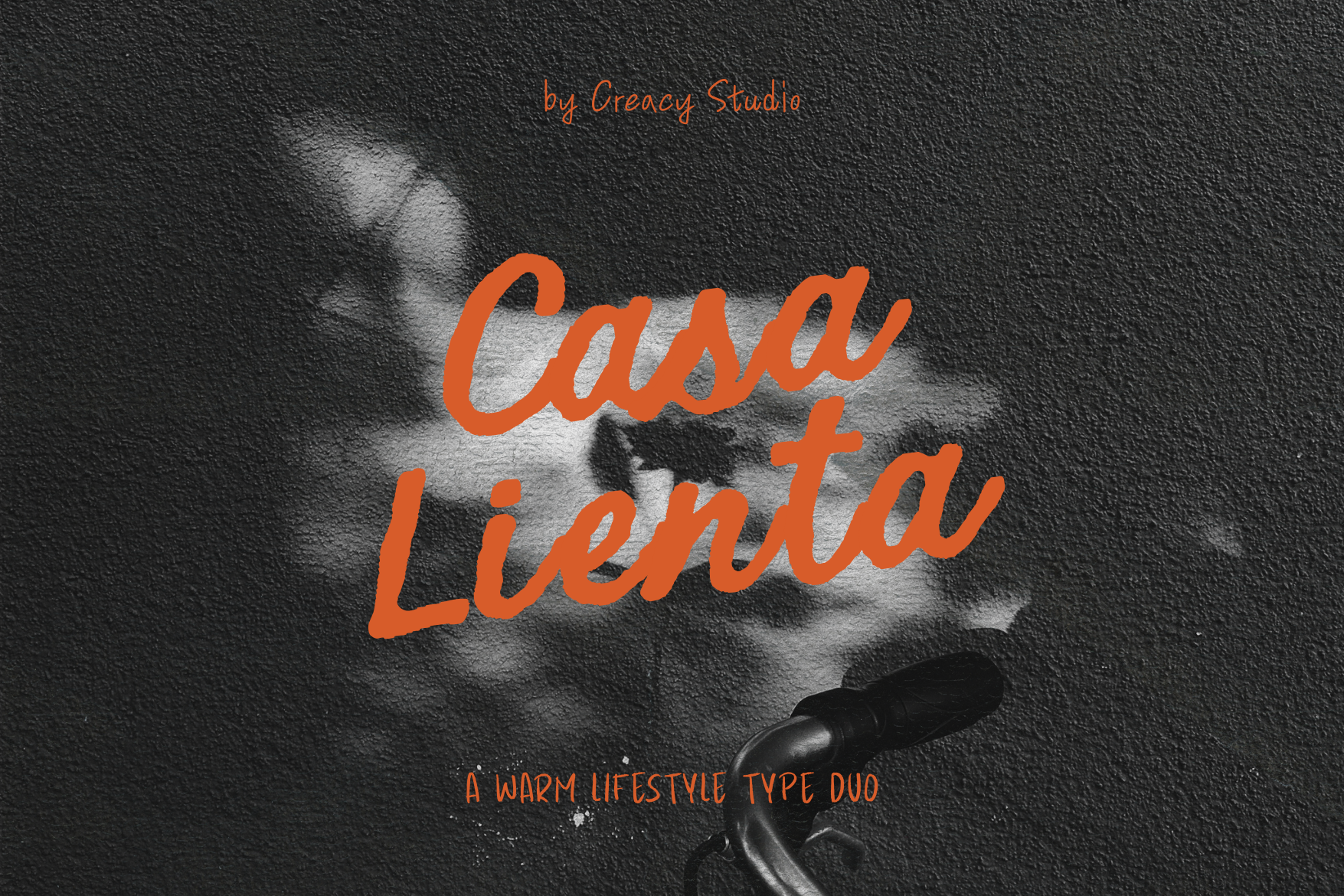
Casa Lienta – Warm Contemporary Font
Casa Lienta is a contemporary handwritten script designed to bring warmth, personality, and effortless charm into your brand projects.
With its expressive brush flow and smooth, confident curves, this typeface strikes a balance between bold display presence and natural everyday elegance. It feels handcrafted, soulful, and modern — perfect for brands that want to connect emotionally without losing sophistication.
Whether you’re building a cozy coffee brand, a lifestyle label, or a creative studio identity, Casa Lienta delivers character with clarity.
• Warm and organic handwritten style • Smooth brush-inspired strokes • Strong personality with excellent readability • Perfect for bold headlines and expressive branding • Modern yet timeless aesthetic
Casa Lienta is built for brands that live between display impact and everyday warmth — expressive, human, and confidently modern.